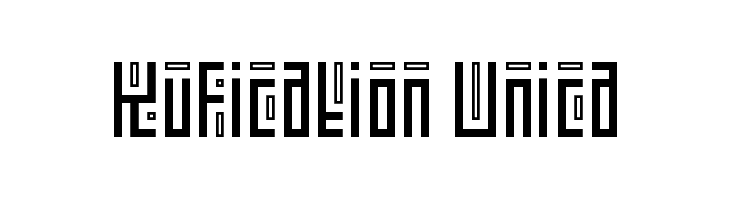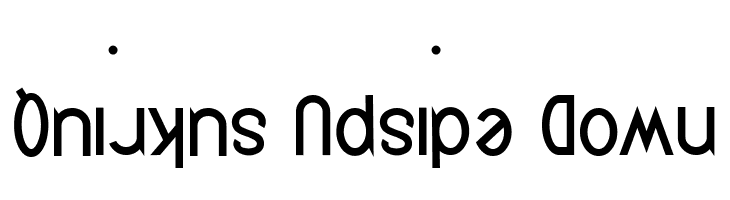
A modern sans-serif font with bold, upside-down characters for a playful effect.
A bold, dynamic script font with elegant, flowing cursive letterforms.
A bold, geometric font with a futuristic, digital aesthetic.
A whimsical display font featuring cartoon faces and totemic symbols.
A bold, whimsical script font with flowing, decorative letterforms.
A bold, handwritten-style font with thick strokes and dynamic energy.
An ornate, Gothic-inspired italic font with sharp, angular strokes.
A lively, flowing script font with elegant curves and a handwritten style.